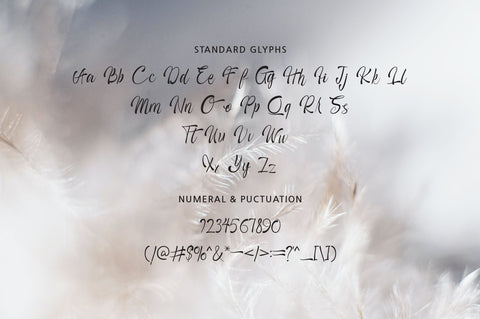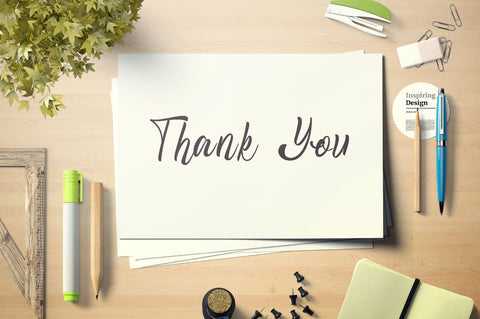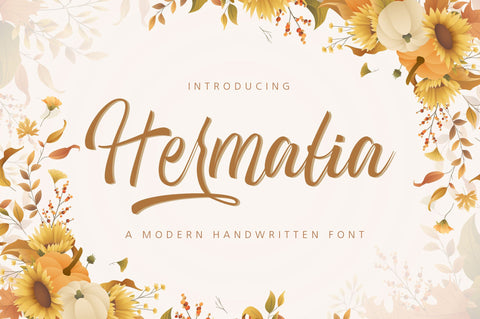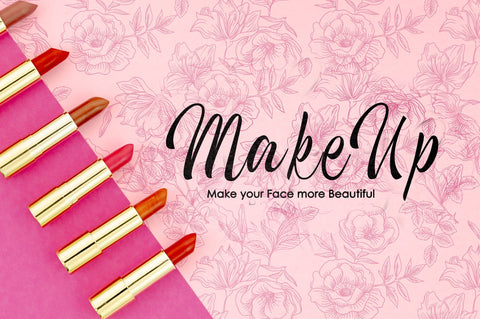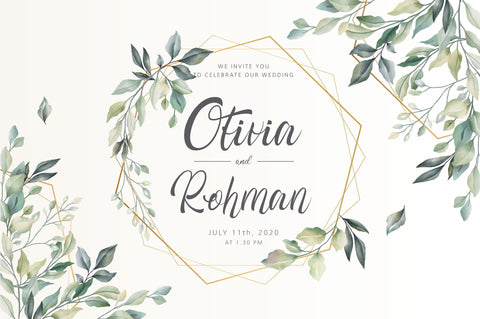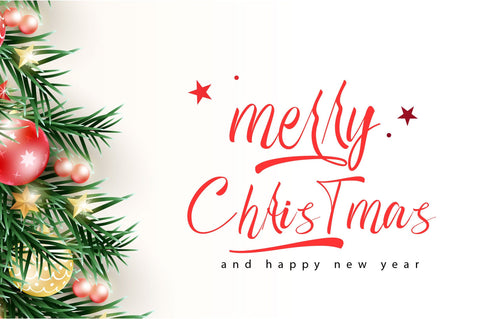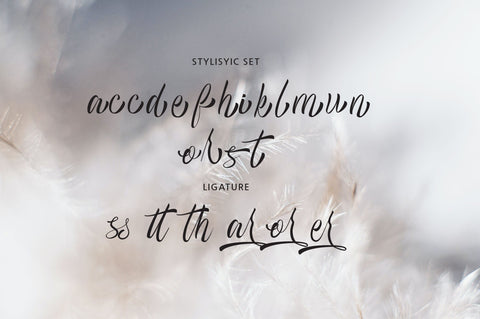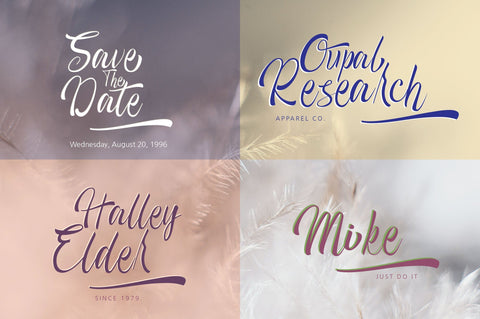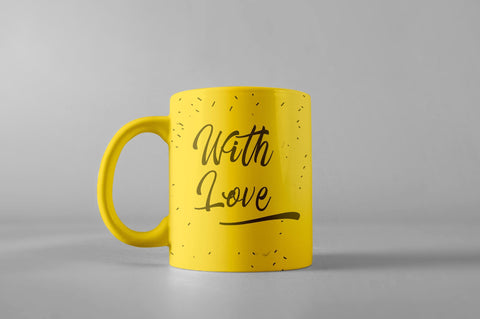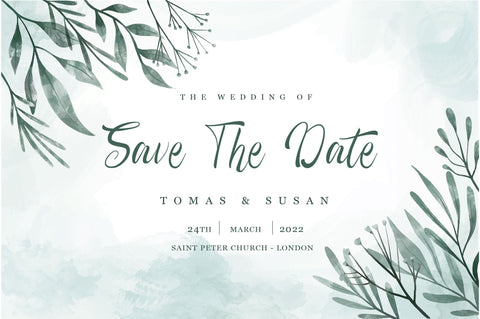
Hermalia Handwritten Font
Hermalia is a Modern Handwritten Font, This font is handmade and has powerful character. The font is work specialty is good for product design like a scout Template/mockup, Post, T-shirt, Quote, scout event or you can use for your logo design, typography design, etc. This product is inspirational for your creative design.